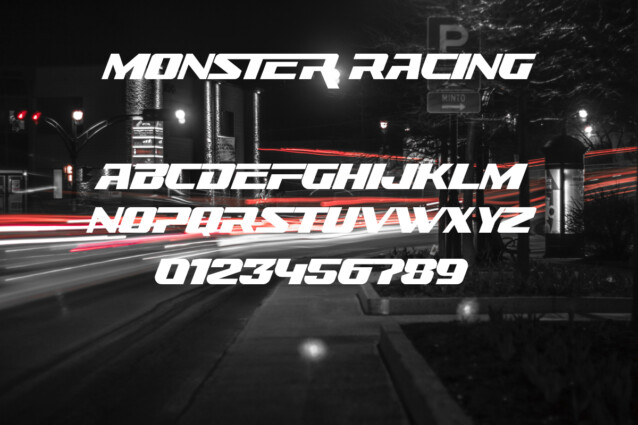
Monster Racing Font is a cool, bold and modern display font. Add this font to each of your sport or speed related designs and notice how they instantly come to life.